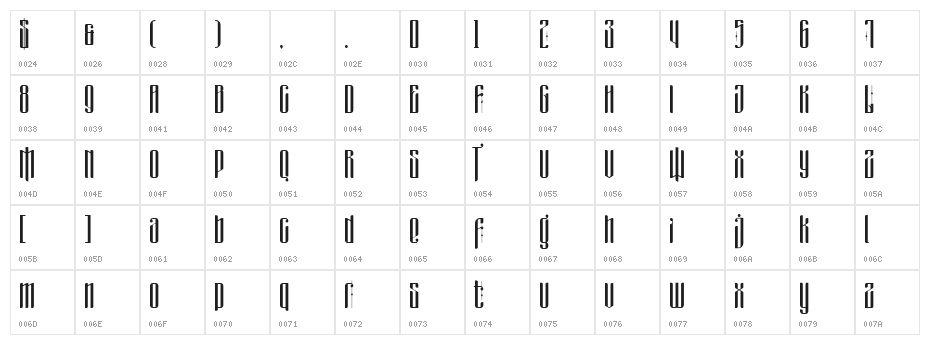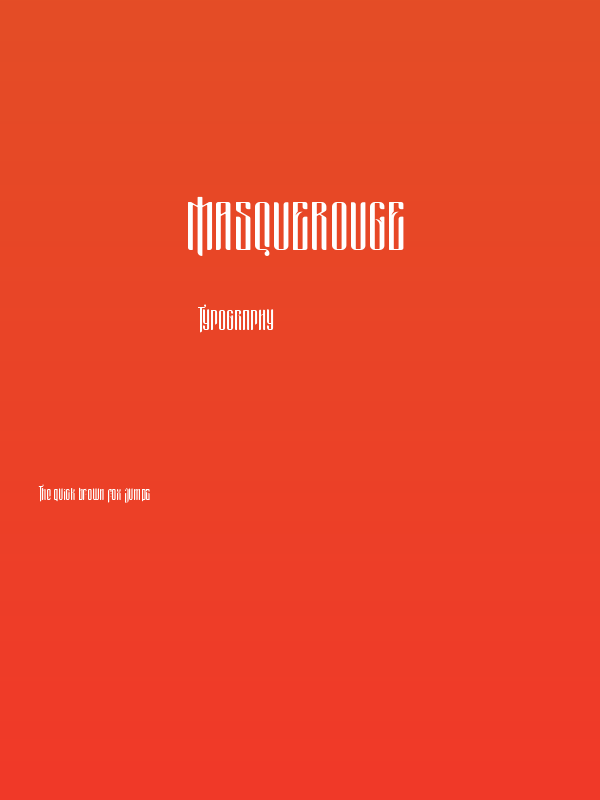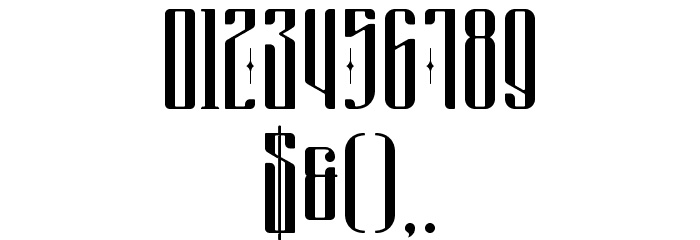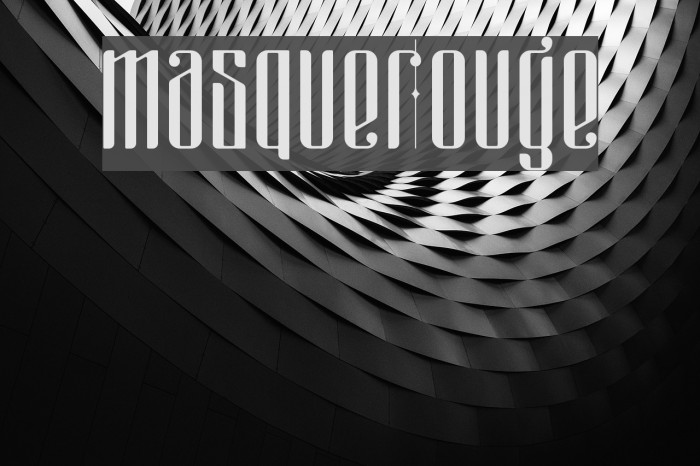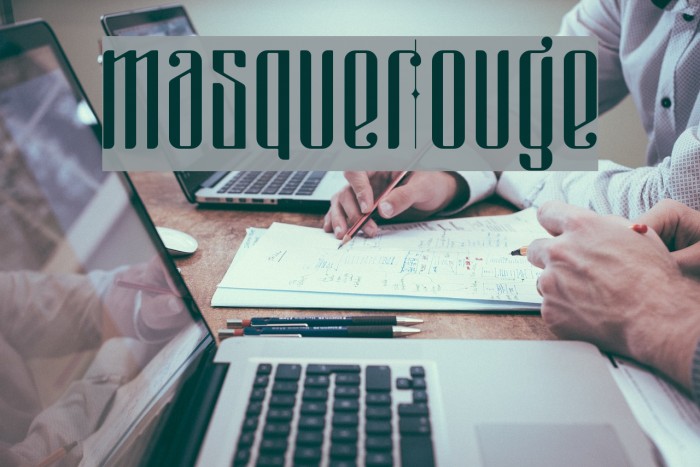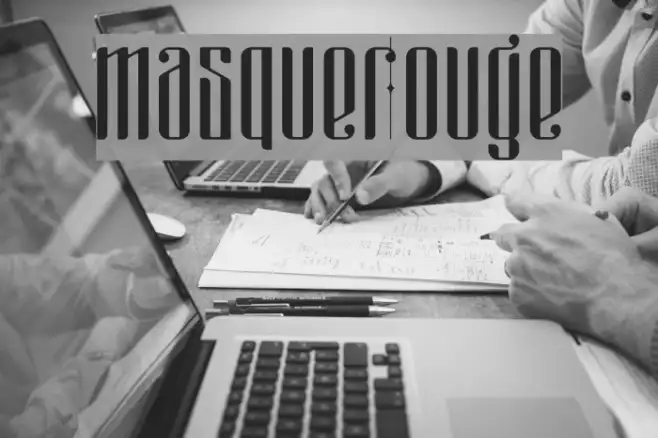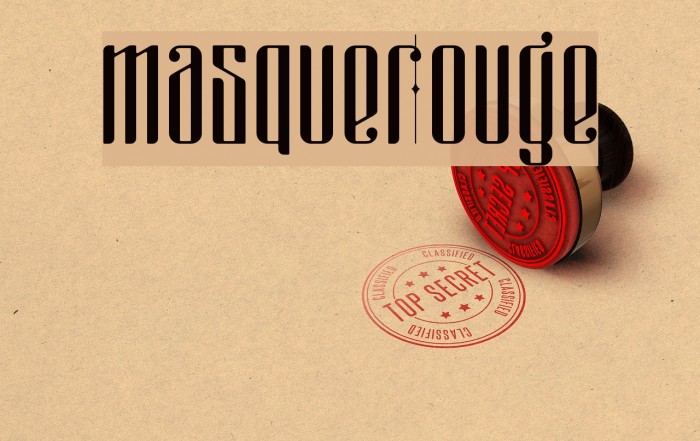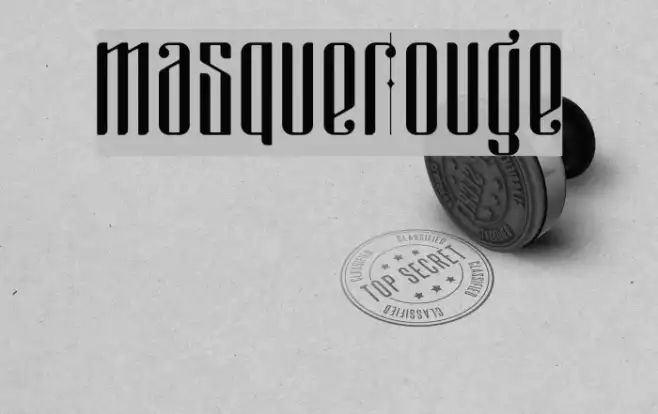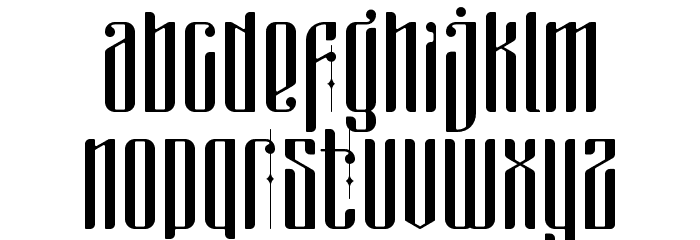
masquerouge Font
masquerouge Description
This font features a distinct, elongated style with sharp, angular edges and a high level of contrast between thick and thin strokes. The characters are tall and narrow, giving them a condensed appearance. Unique decorative elements, such as small star-like symbols, are integrated into certain letters, adding a touch of elegance and flair. The overall design is reminiscent of a modern take on traditional blackletter fonts, combining historical influences with contemporary aesthetics. The uppercase and lowercase letters maintain a consistent style, while the numerals and special characters complement the alphabet with their cohesive design.
| Proposed Projects | Ideal for use in branding, poster design, album covers, and any project requiring a bold, artistic statement. |